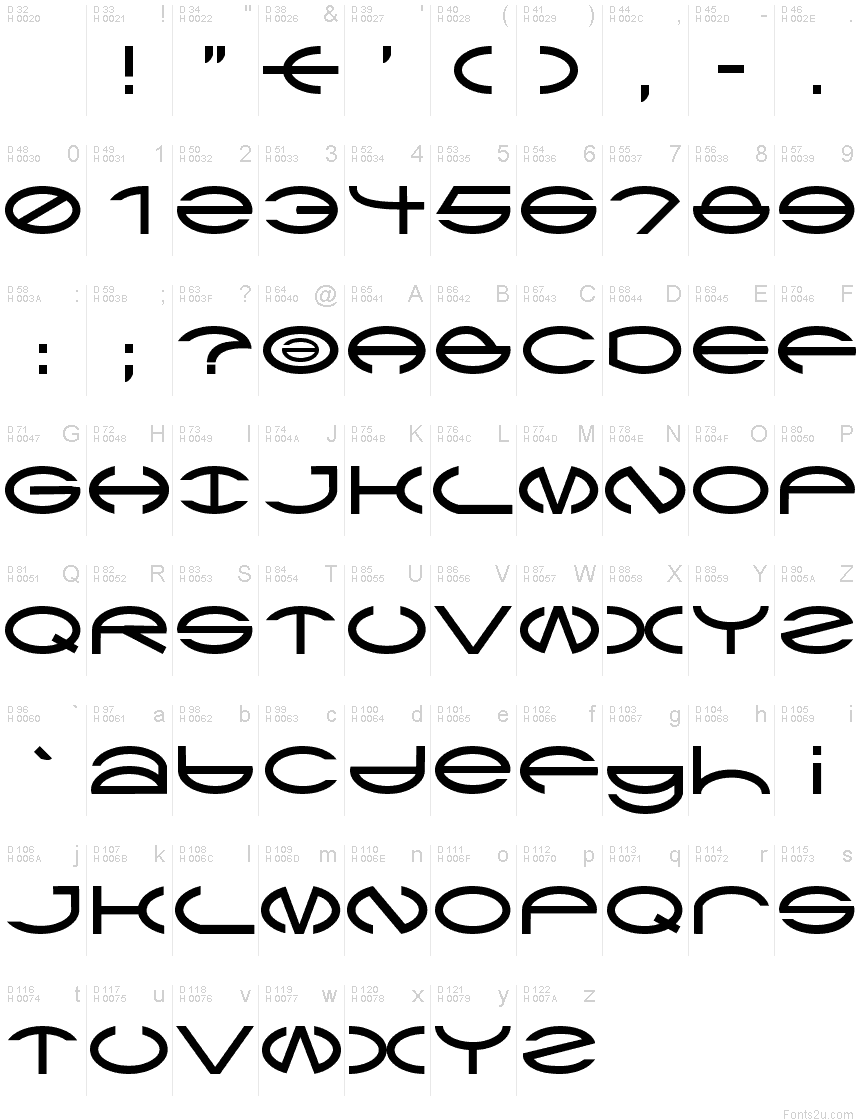
CType
CType font by Astigmatic One Eye is a free futuristic display typeface with a sleek, continuous rhythm that feels half-digital, half-hand-drawn. Its rounded, tubular strokes glide into sharp verticals, giving every word a smooth, chrome-like sheen without feeling cold or mechanical. The tight curves, generous counters, and even line weight make it read clearly at larger sizes while still looking distinctly sci‑fi and a little retro.
Using CType, titles and wordmarks feel like they’re stamped on a spaceship hull-confident, streamlined, and slightly playful. This free font shines on game logos, tech branding, interface mockups, music covers, posters, and event graphics where you want a future-forward attitude. Try pairing CType with a simple geometric sans for body copy, and let CType handle headers set big with loose tracking to show off its flowing forms.